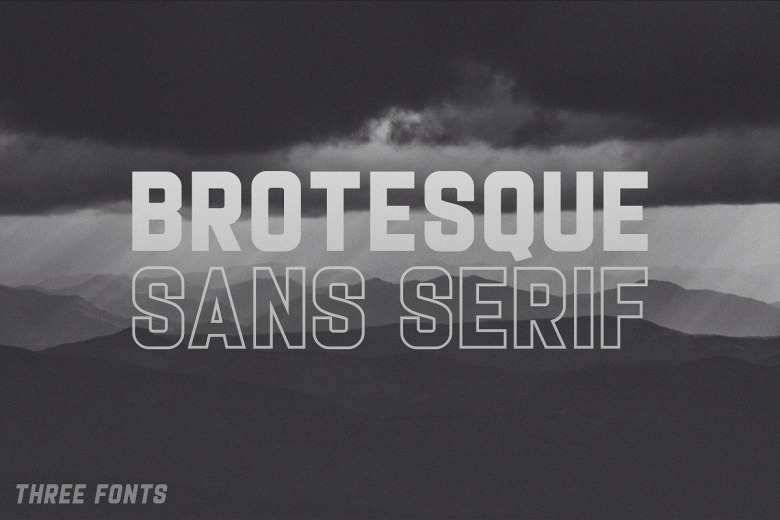
Brotesque Font
Brotesque Sans Serif Font is a font that looks modern and powerful. Inspired by the old writing style that has beautiful shapes, here we add a modern feel to every letter, number and function.
Perfect for magazine, headers, invitations, cover book, logo, brand identity and so much more! It contains an uppercase alphabet with numbers and symbols.
Brotesque Sans Serif Font